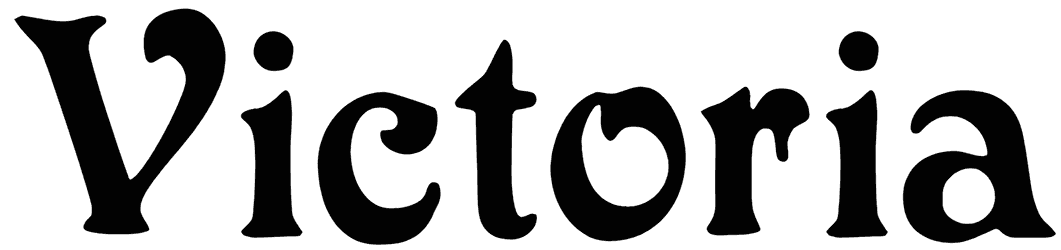
Victoria CAT Font
Designed byPeter Wiegel
While outstanding alongside thousands of content is getting more difficult, a retro font such as Victoria CAT would be your survivor and help you in designing significant menus, banners, billboards, and websites. Due to rounded and elongated edges, it carries a sense of classic, vintage, and drama, so try it to make a charming outcome.